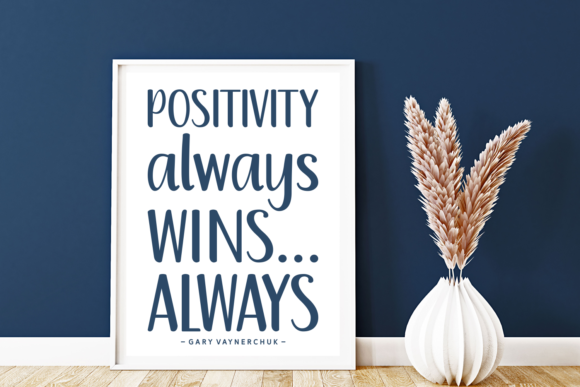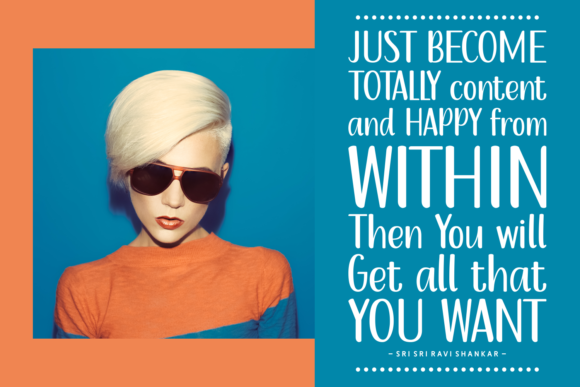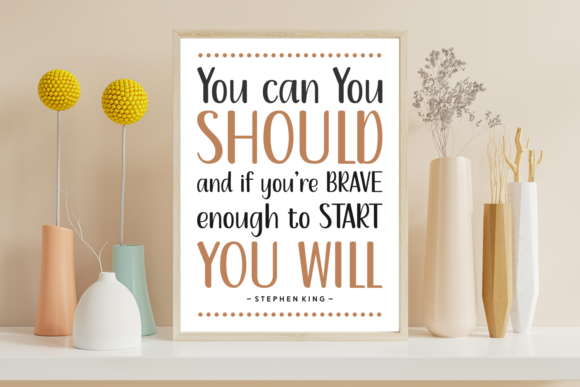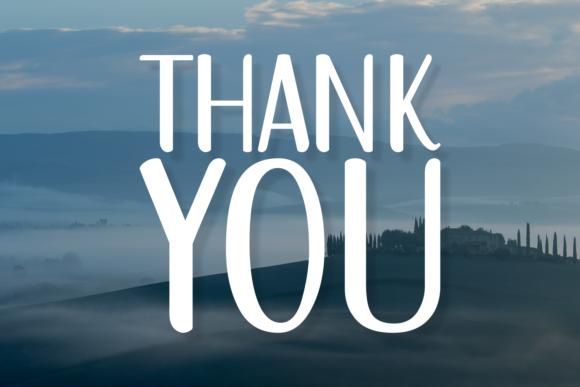
Farmhouse Moment Font
About Farmhouse Moment Font
Farmhouse moment is a simple and timeless handwritten style font. The characters will create a free-flowing and effortless effect to enhance your next project! This font is compatible with cutting machines such as Cricut and Silhouette.